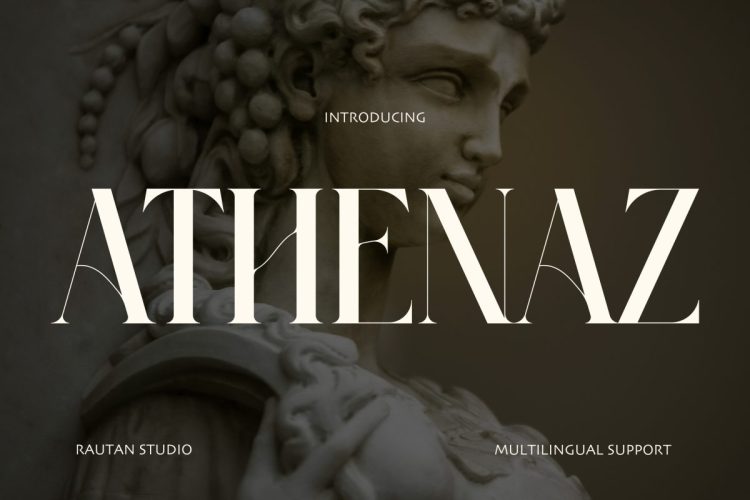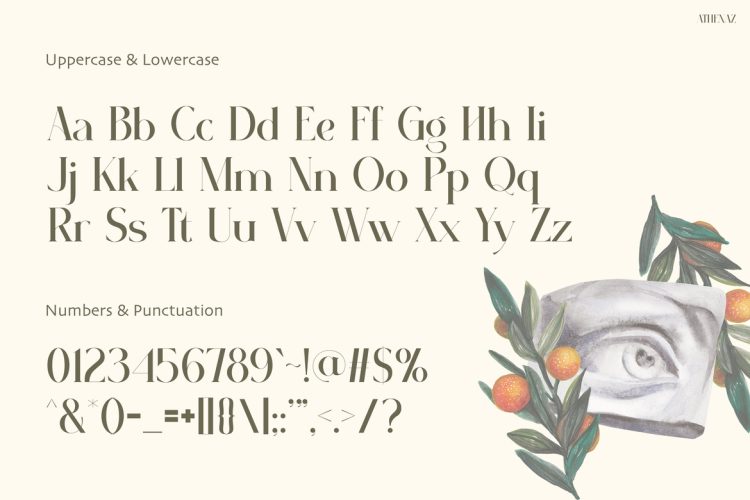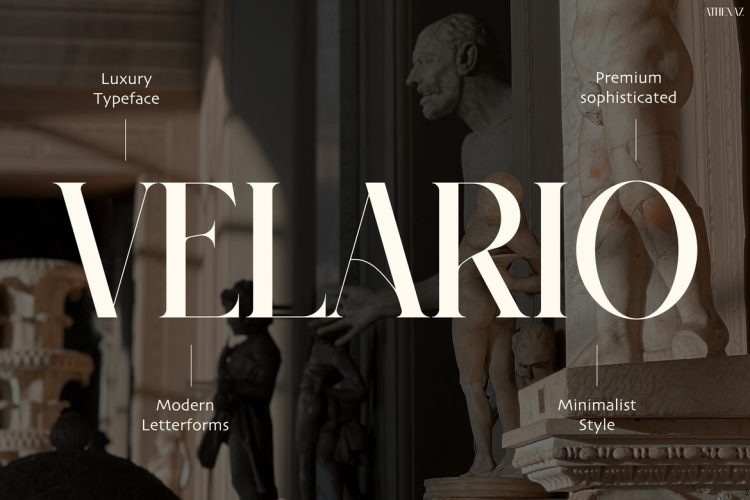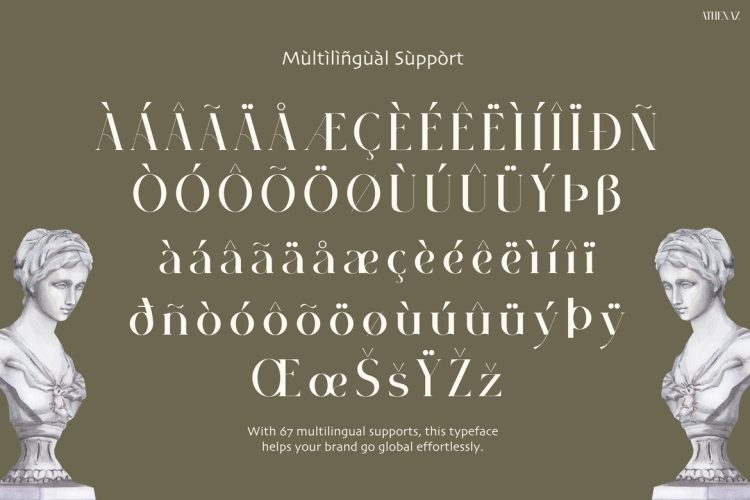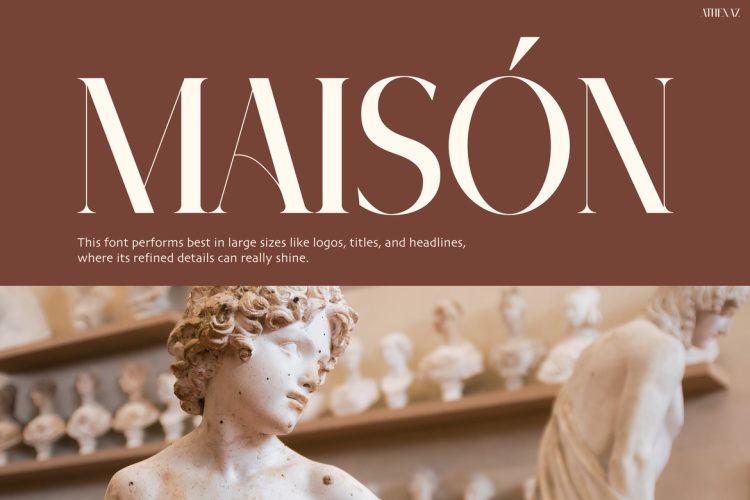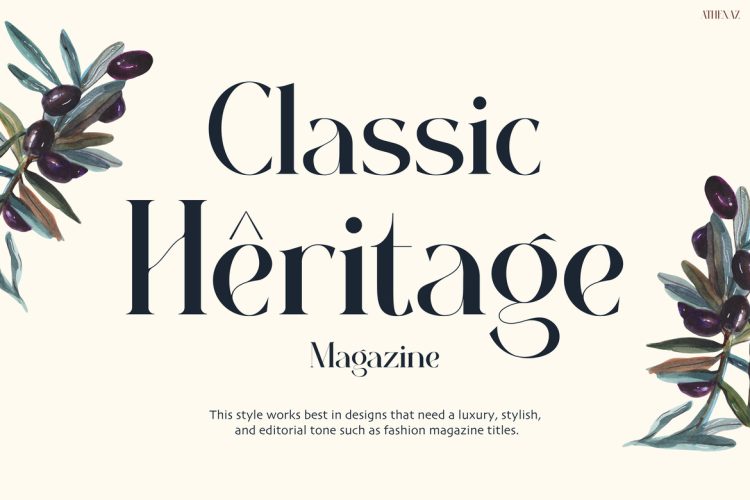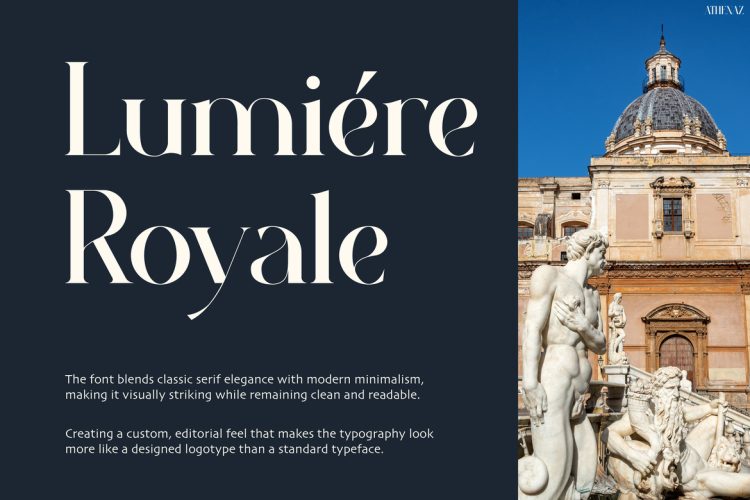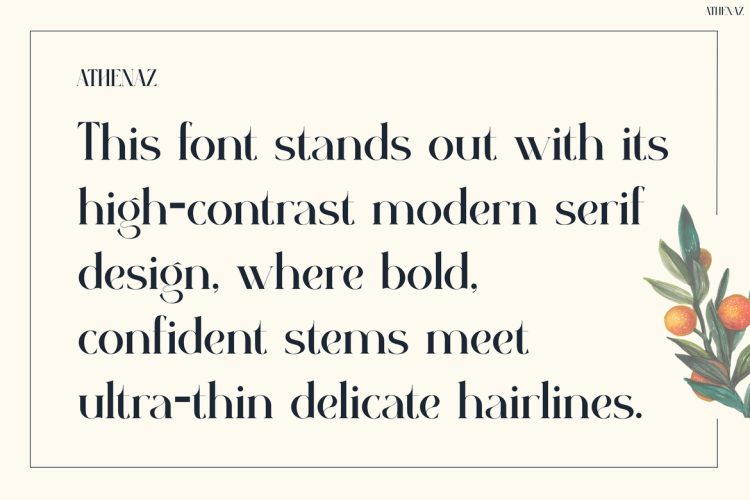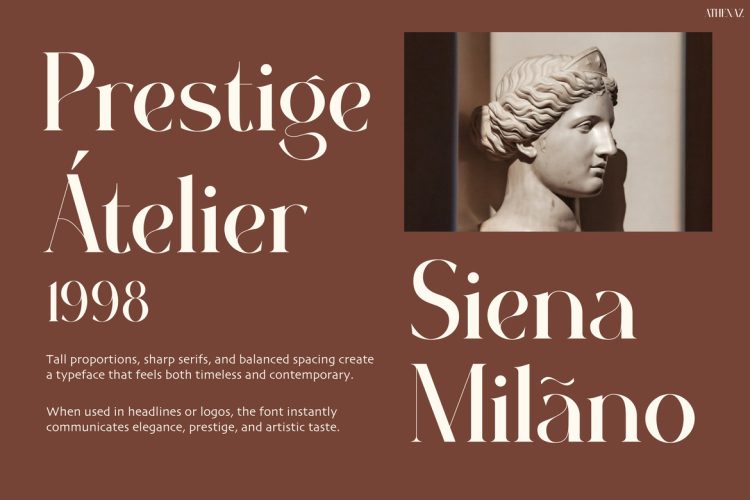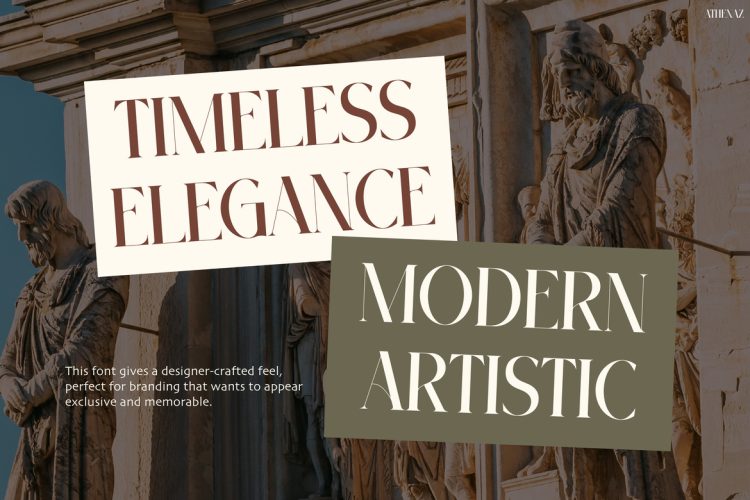
Timeless Editorial Elegance โ Instagram Font Athenaz
Instagram Font Athenaz brings refined editorial luxury to your typography. Inspired by classic European magazine design, this modern serif blends bold high-contrast strokes with delicate hairlines. As a result, it creates a striking visual balance. The sharp serifs and graceful letterforms capture attention instantly. Therefore, every headline looks sophisticated and memorable. Its elegant structure and stylish proportions create a premium aesthetic for modern design. Moreover, the carefully crafted characters stay clear in both print and digital layouts. With support for 67 languages, this font helps creators communicate beautifully across global audiences.
Instagram Font Athenaz is a modern editorial serif made for bold and graceful typography. It features refined contrast, artistic ligatures, and balanced spacing. Because of this, the font delivers a luxurious and polished look. Furthermore, it works beautifully for fashion magazines, luxury branding, and elegant social media visuals. It also shines in packaging design and stylish website headers. The clean structure keeps text readable while maintaining strong visual impact. Therefore, designers can create striking headlines and refined branding with ease. Instagram Font Athenaz adds prestige, elegance, and artistic flair to every project.
Instagram Font Athenaz is perfect for graphic designers, brand strategists, luxury brands, fashion labels, magazine editors, and content creators. It is also ideal for Instagram branding, editorial layouts, beauty packaging, wedding stationery, boutique logos, and luxury marketing materials. In addition, it fits aesthetic lifestyle content and modern creative campaigns.